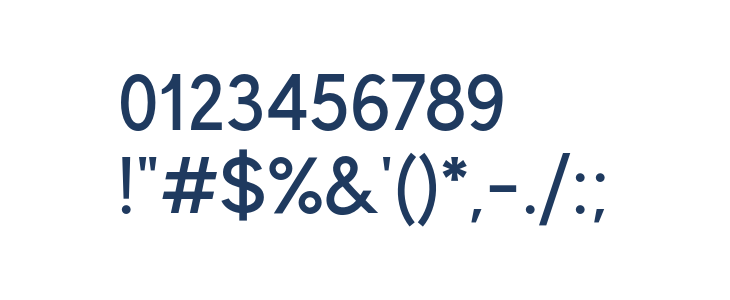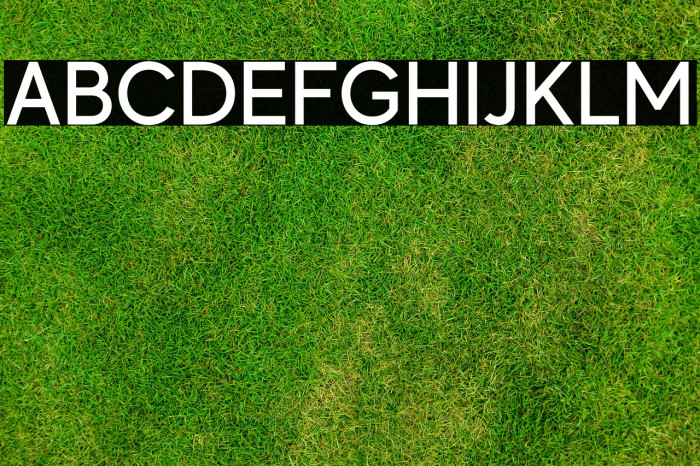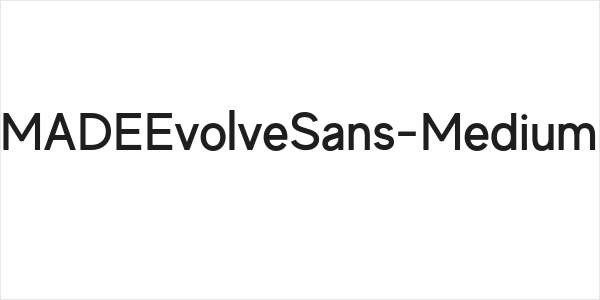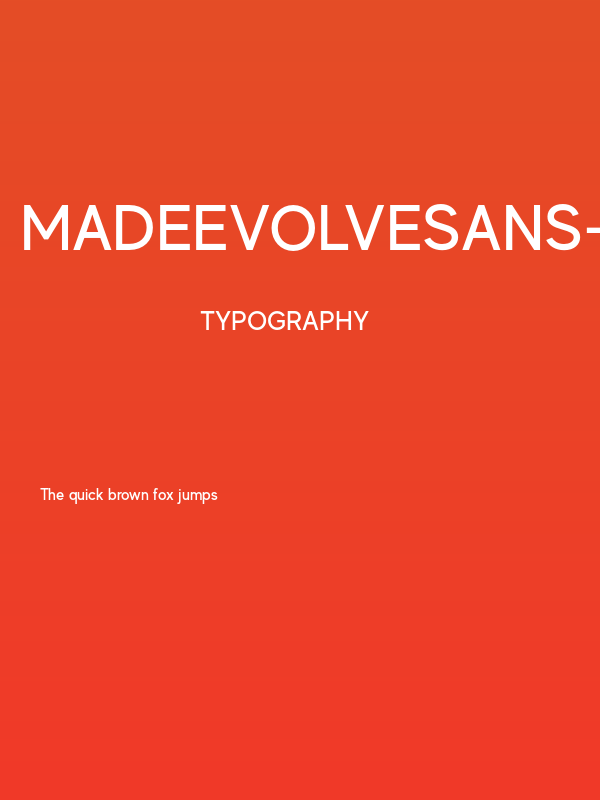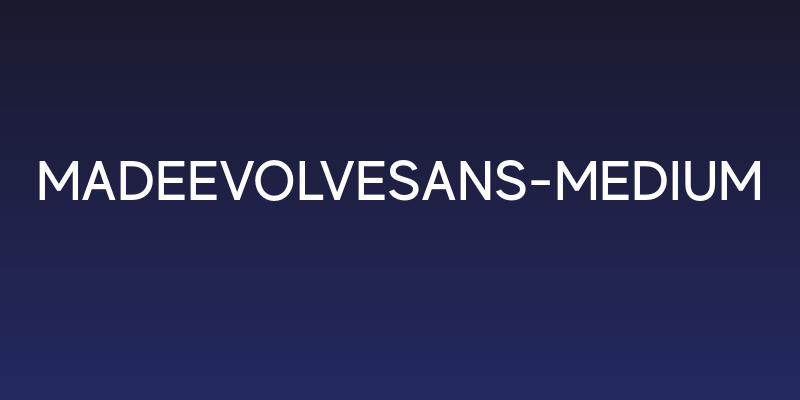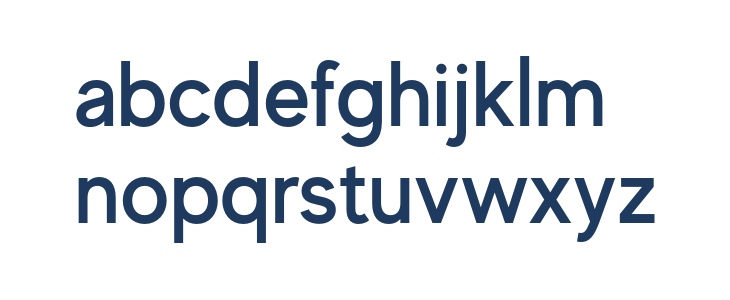
MADEEvolveSans-Medium Font
MADEEvolveSans-Medium Description
This font presents a clean and modern aesthetic with a sans-serif style. It features uniform stroke widths, contributing to a balanced and harmonious appearance. The characters are well-proportioned, with a slightly geometric influence that enhances readability. The uppercase letters are bold and assertive, while the lowercase letters maintain a friendly and approachable feel. The numerals are clear and distinct, making them suitable for various applications. Special characters are designed with simplicity and clarity, ensuring they integrate seamlessly with the rest of the typeface.
| Proposed Projects | Ideal for branding, web design, advertising, and editorial projects where clarity and modernity are essential. |